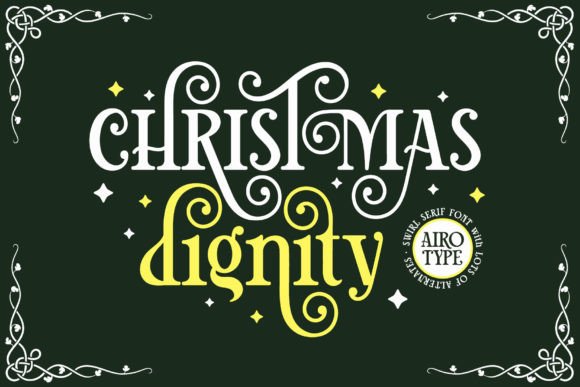
Introducing Christmas Dignity Font, the epitome of modernity and elegance in the world of serif fonts. Created by the talented airotype, this font is not just any ordinary typeface – it exudes an air of sophistication, swirling with beauty and grace.
Christmas Dignity Font is the perfect choice for those seeking to elevate their designs to new heights. Its sleek and stylish design is bound to captivate your audience, leaving a lasting impression that is simply unforgettable. With its elegant curves and enchanting swirls, this font brings a touch of class to any project, making it truly stand out from the crowd.
While its name suggests a holiday theme, Christmas Dignity Font is not limited to just one season. This versatile typeface is a true chameleon, effortlessly adapting to various design needs. Whether you're planning a dreamy wedding invitation, crafting inspiring quotes, or creating eye-catching t-shirts and stickers, this font has got you covered.
Embrace the vibes of modernity and elegance with Christmas Dignity Font. It's more than just a font – it's an experience that will breathe life into your designs. Let your imagination run wild as you explore the endless possibilities this font offers, allowing your creativity to soar to new heights.
But what sets Christmas Dignity Font apart from the rest? It's not just its mesmerizing beauty or its versatility, but the emotional connection it establishes with your audience. This font speaks directly to their hearts, evoking emotions of joy, warmth, and celebration. It creates a sense of anticipation and excitement, making your designs truly come alive.
So why wait? Embrace the magic of Christmas Dignity Font and let it be the secret weapon in your design arsenal. Set your creations apart from the ordinary, and watch as they shine with elegance and sophistication. Don't settle for anything less than extraordinary – choose Christmas Dignity Font and let your imagination take flight.